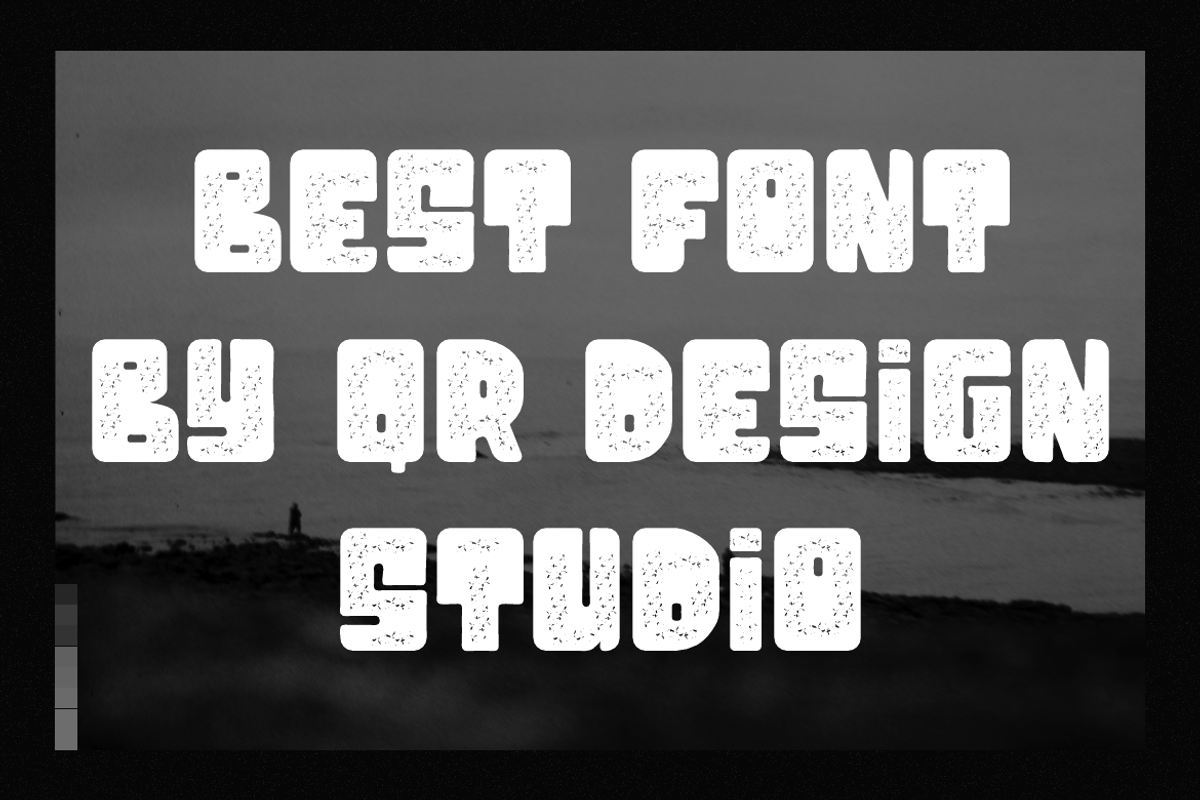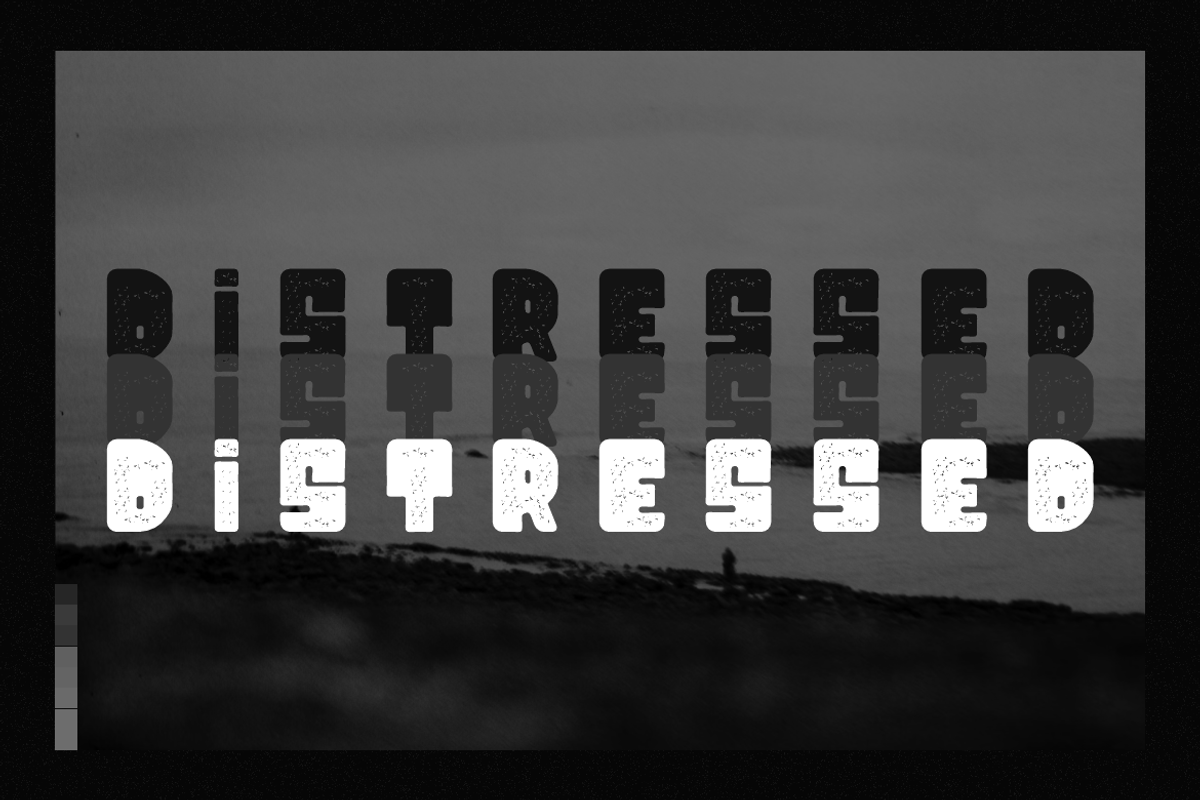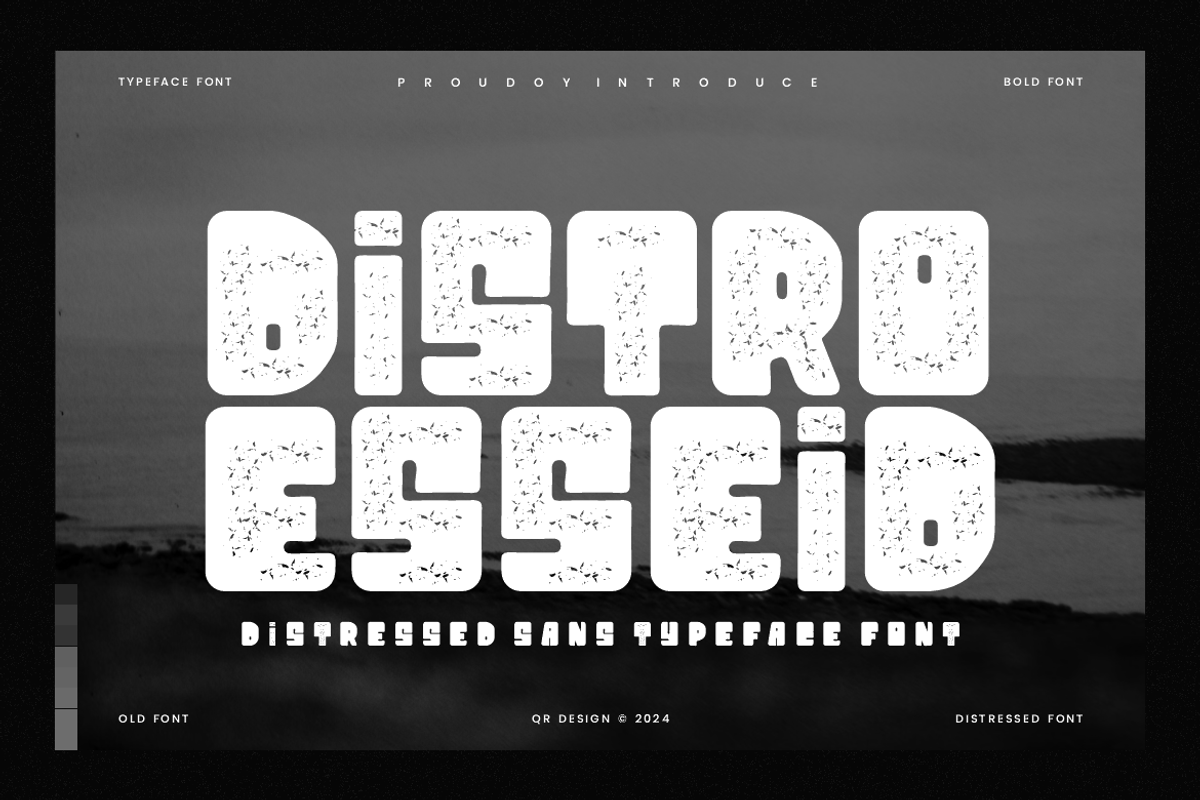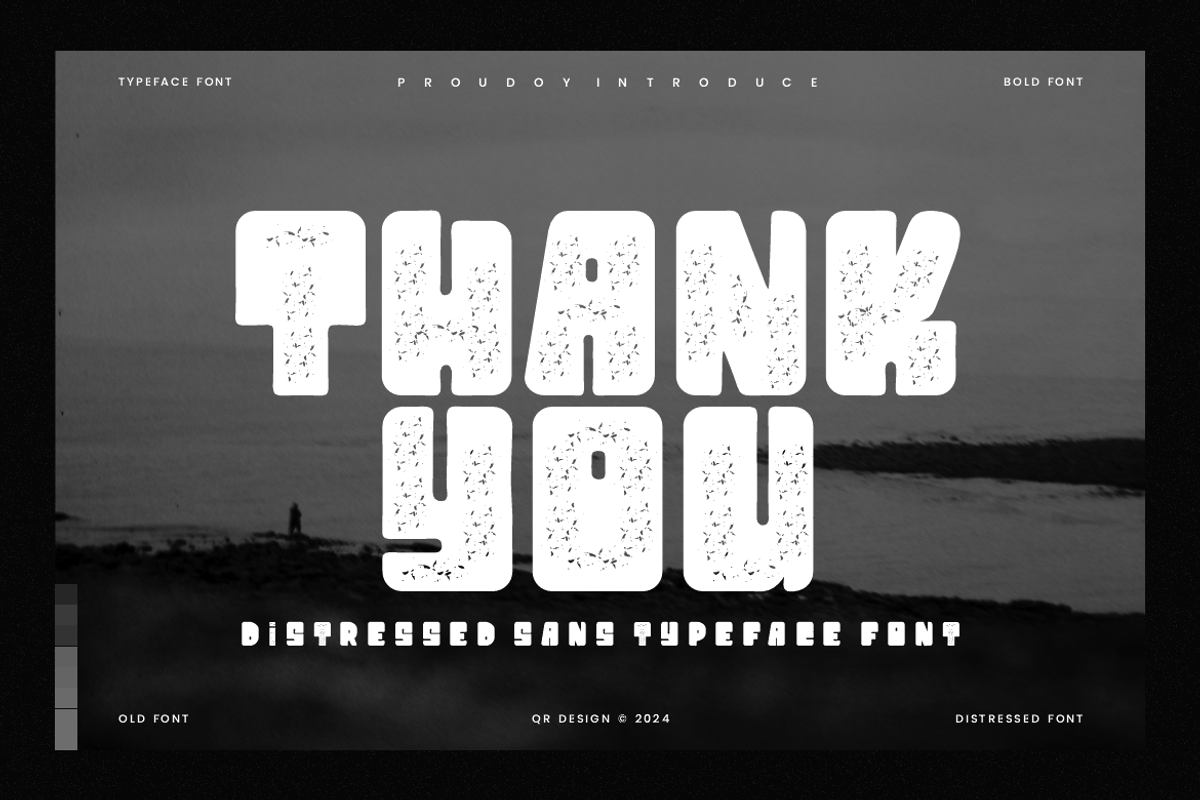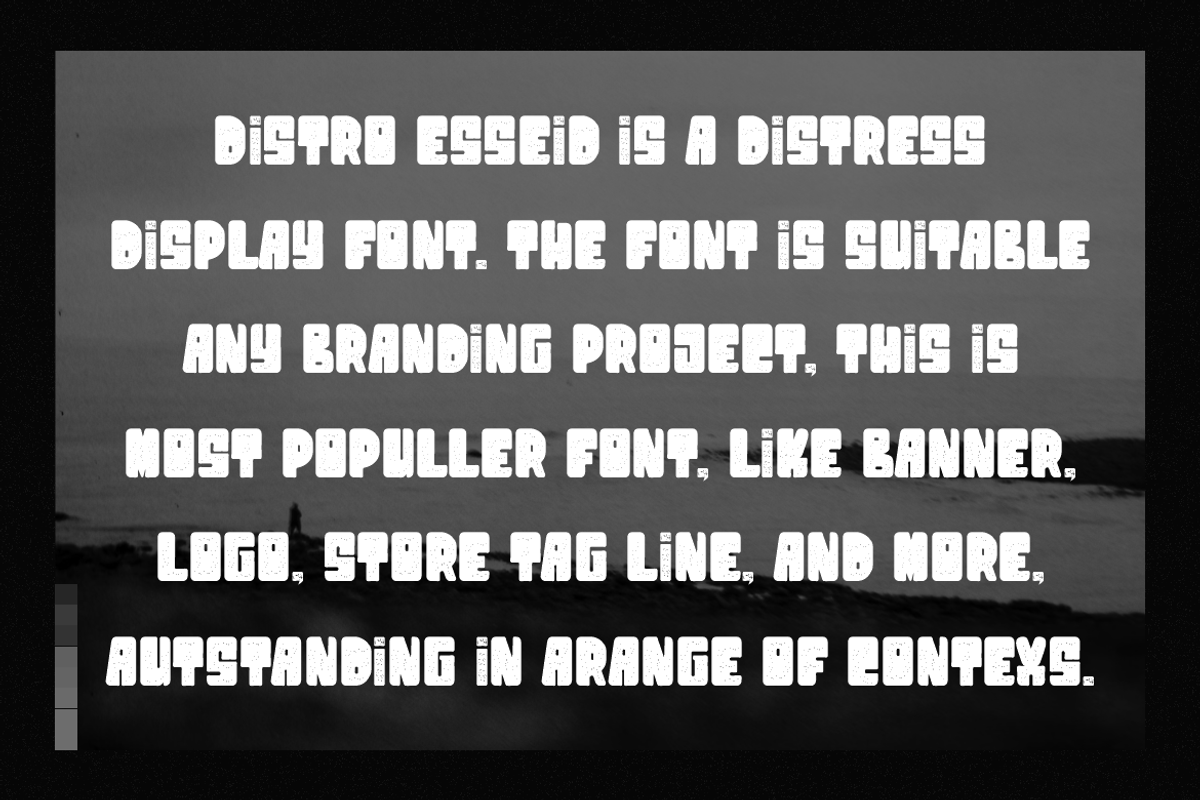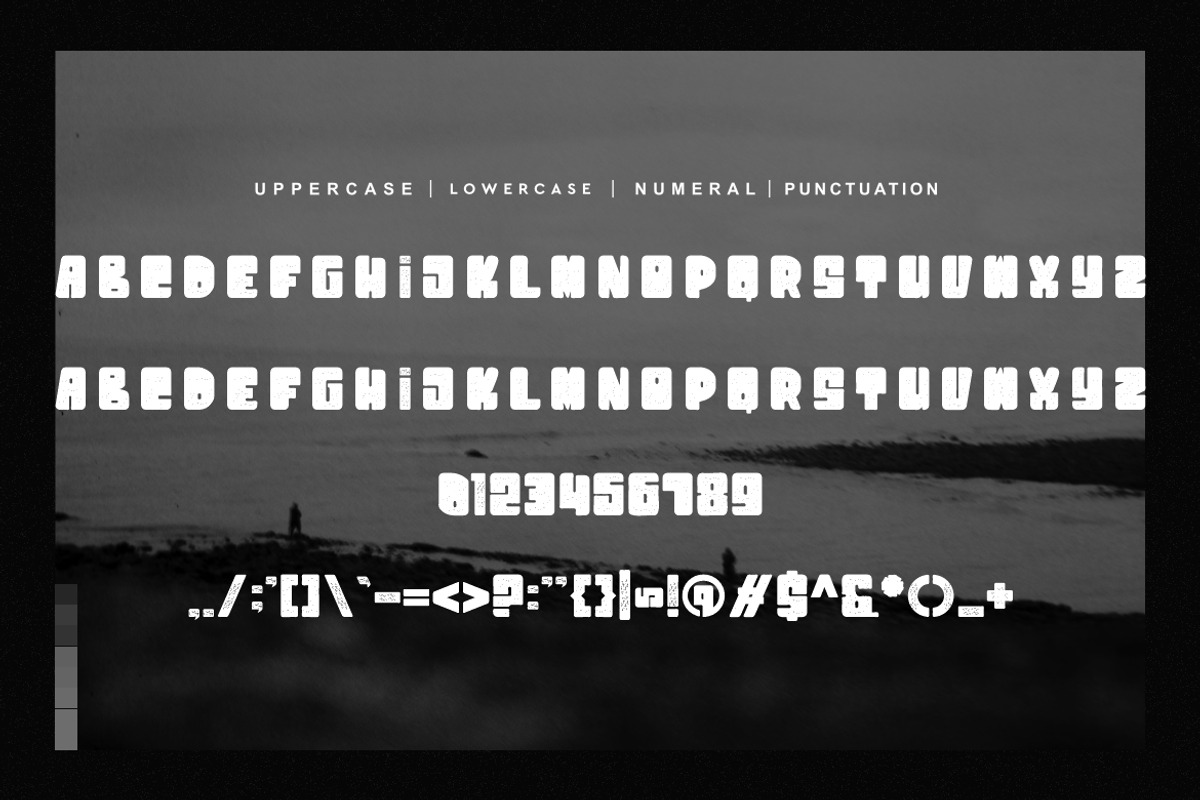
Distro Esseid - Distressed Font
Distro Esseid - Distressed Typeface Font is a bold and authentic display font. The font is suitable for any branding project like poster, logo, sport, and many more. Outstanding in a wide range of contexts.